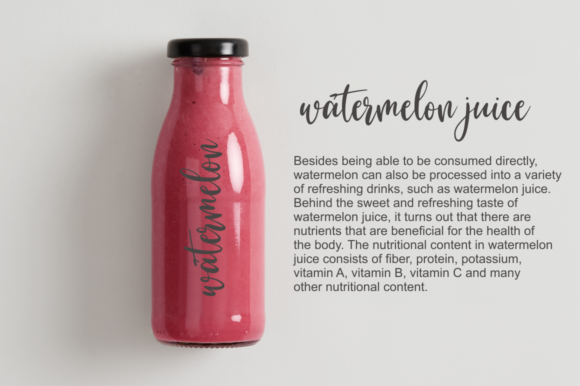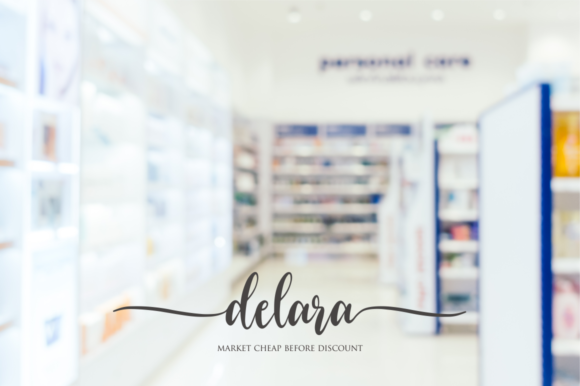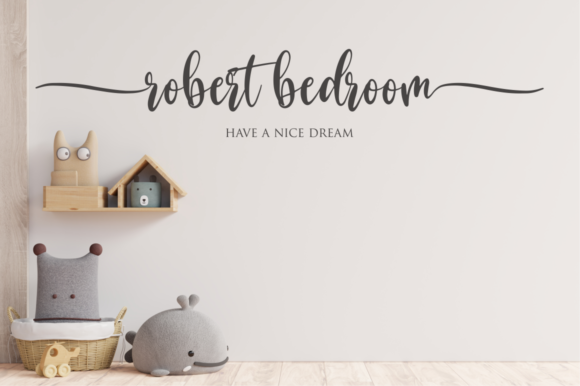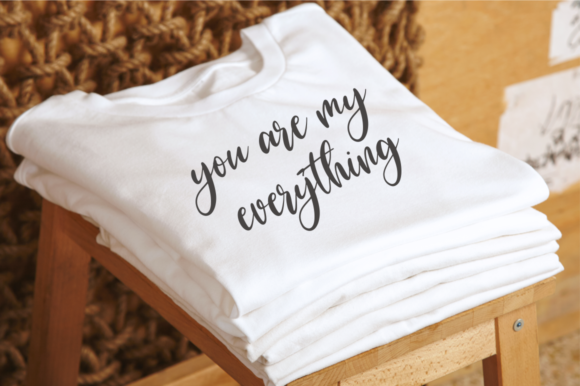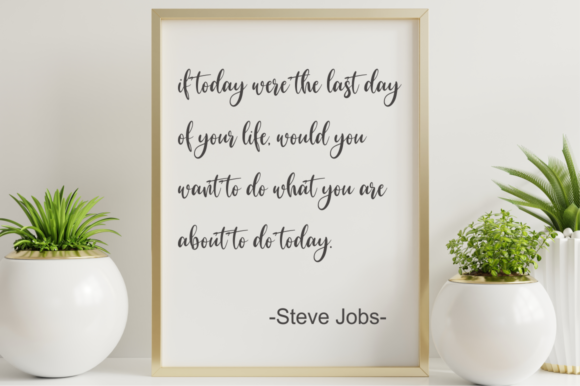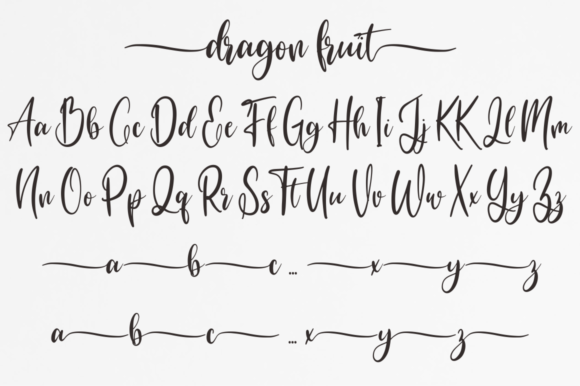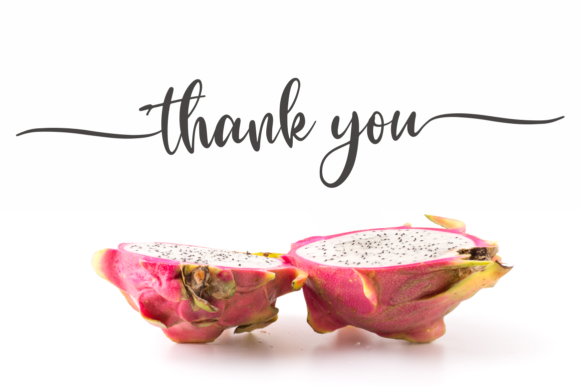
Dragon Fruit Font
About Dragon Fruit Font
Dragon Fruit is a whimsical and beautiful handwritten font that adds a touch of magic to any design. With its playful and elegant style, it is perfect for a variety of projects including wedding invitations, thank you cards, quotes, greeting cards, logos, and business cards.
The unique letterforms of Dragon Fruit bring a sense of charm and personality to your designs. Whether you’re going for a romantic and delicate look or a more fun and imaginative vibe, Dragon Fruit offers versatility to cater to your specific design needs.
One of the advantages of Dragon Fruit is its PUA encoding, which allows easy access to all the glyphs and swashes. This means you can effortlessly add extra flourishes, ligatures, and decorative elements to enhance your designs and make them truly one-of-a-kind.
The font’s whimsical nature makes it perfect for adding a touch of enchantment and uniqueness to your creative projects. Whether you’re creating wedding stationery, crafting heartfelt quotes, designing eye-catching logos, or printing beautiful greeting cards, Dragon Fruit brings a sense of joy and beauty to your designs.
With Dragon Fruit, you have the opportunity to explore a wide range of possibilities and create stunning and customized designs that leave a lasting impression. Its flowing and whimsical letterforms add a sense of magic, while the playful details bring a touch of wonder.
Embrace the charm of Dragon Fruit and let it inspire your creativity. Access the PUA encoded glyphs and swashes with ease to add that extra flair to your designs. Whether you’re aiming for an ethereal and dreamy ambiance or a vibrant and imaginative atmosphere, Dragon Fruit is here to elevate your creations and make them truly enchanting.